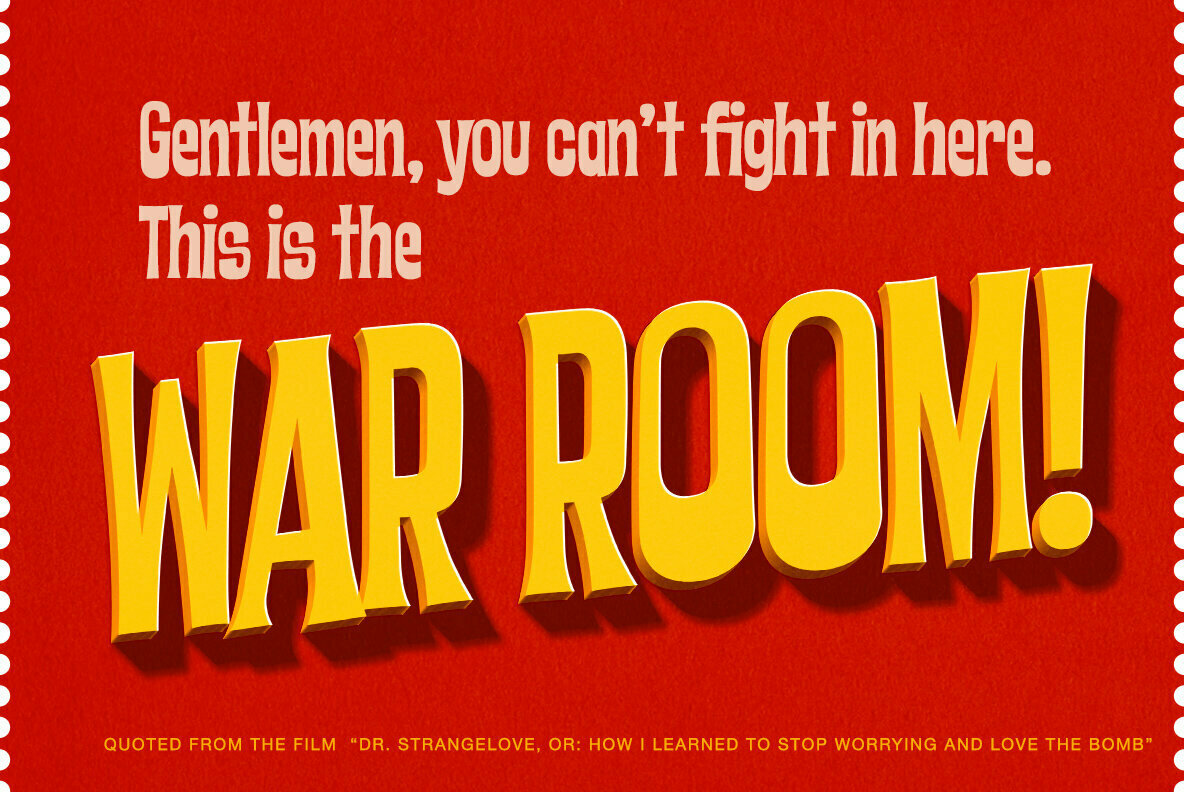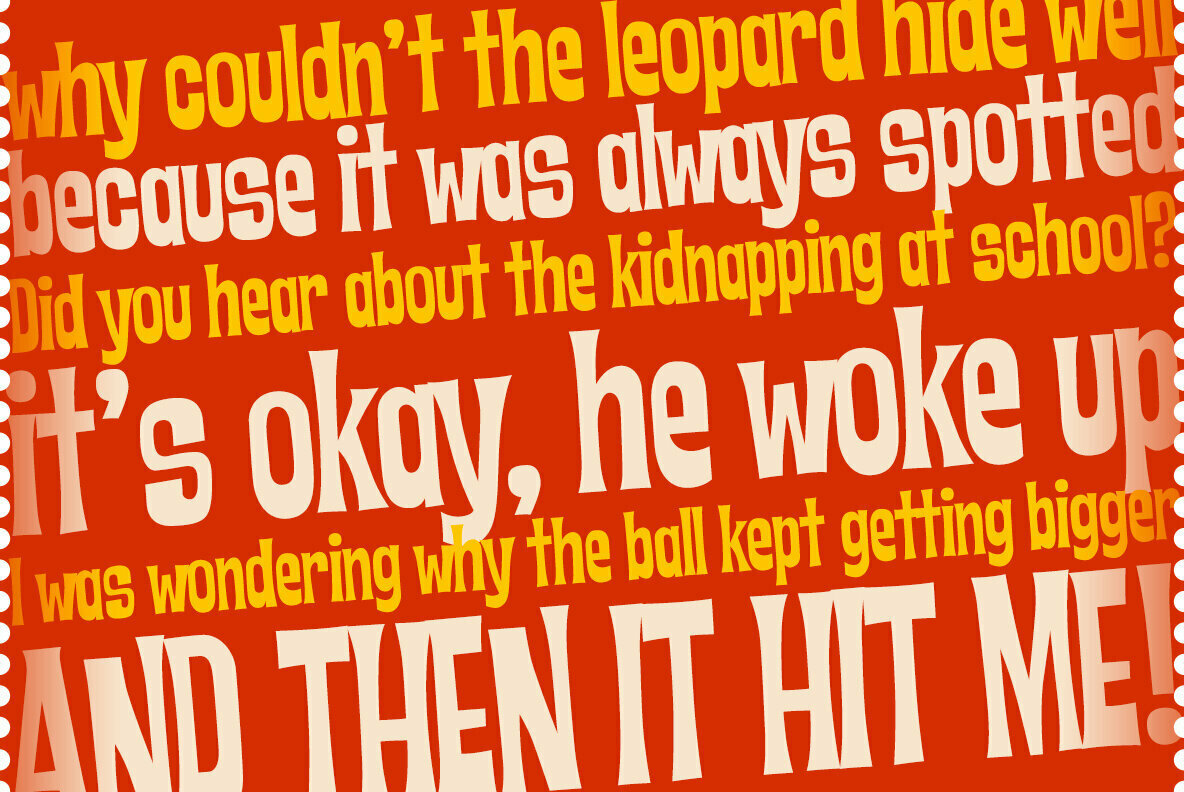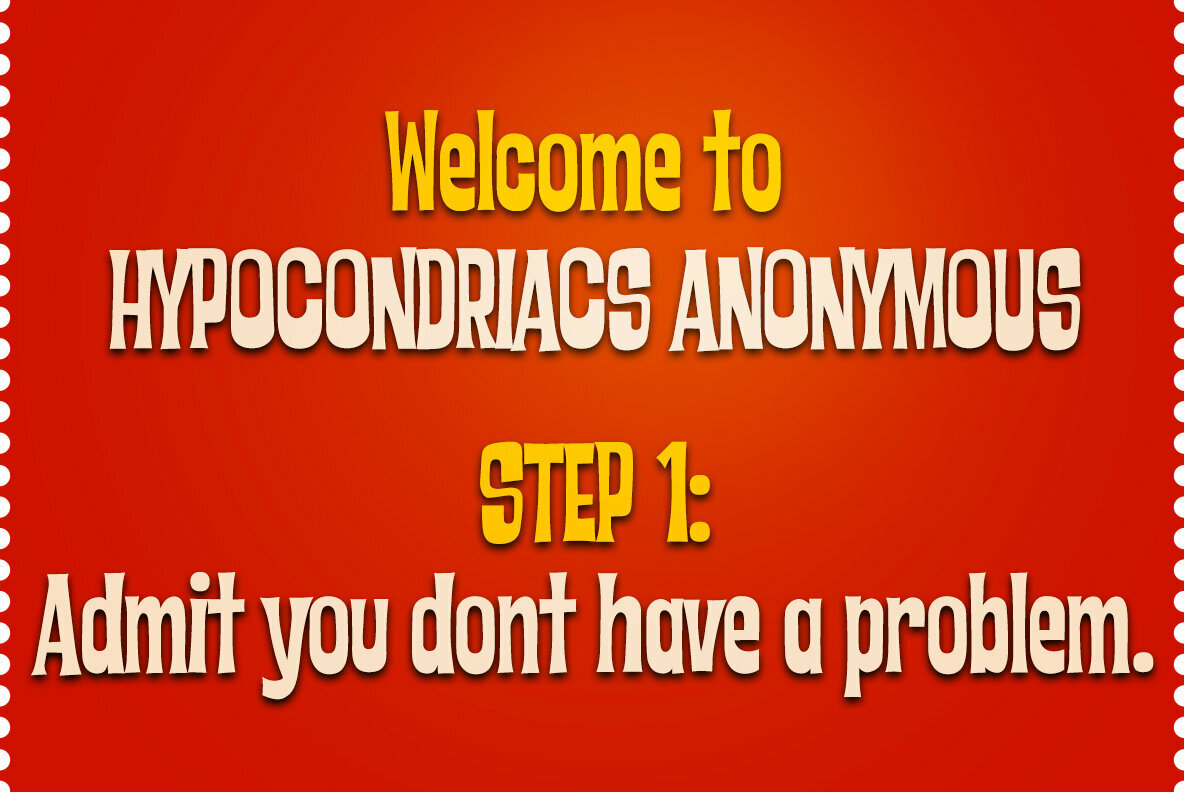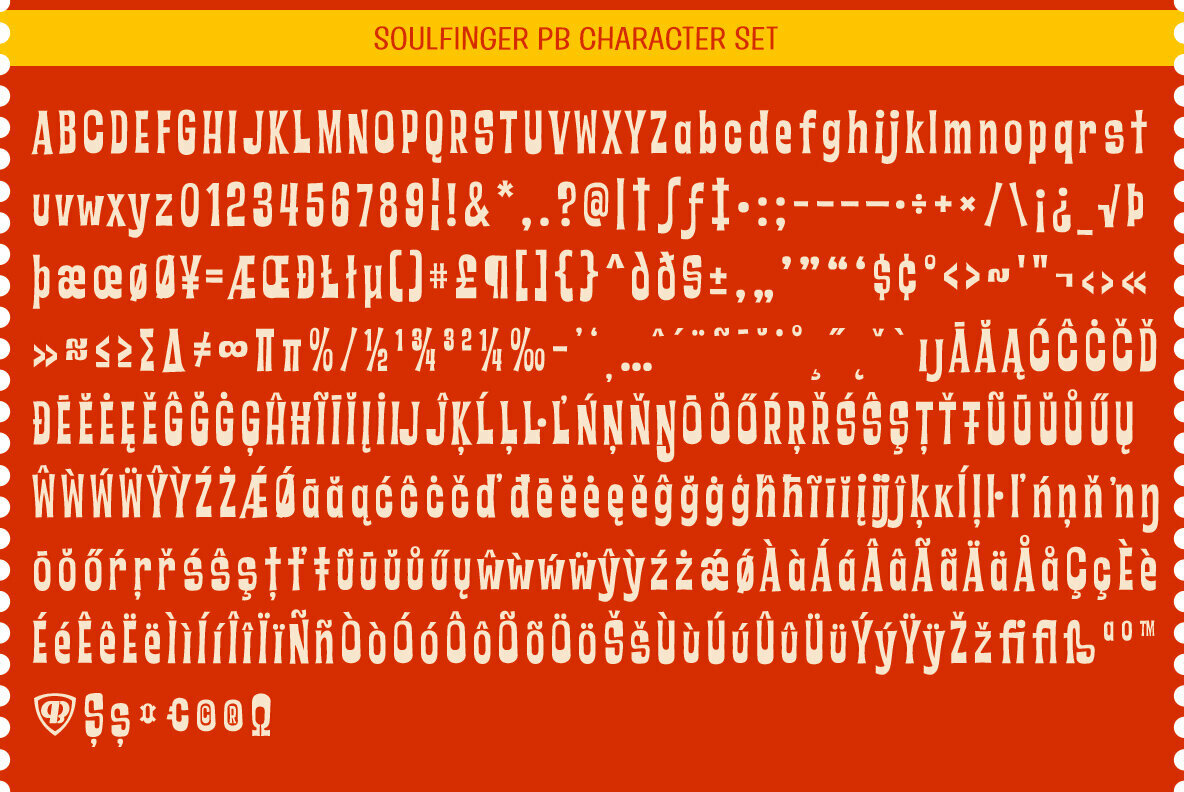
Soulfinger PB Font
Soulfinger PB Regular
Soulfinger PB is a another frisky offbeat typeface from Pink Broccoli, this time inspired by a vintage paperback cover of Patricia Highsmith's "A Pleno Sol". Soulfinger is a flare serif with just enough visual dance to it without going off the rails. It's simply a celebration of the original vintage paperback titling, letting it's freak flag fly, so to speak.